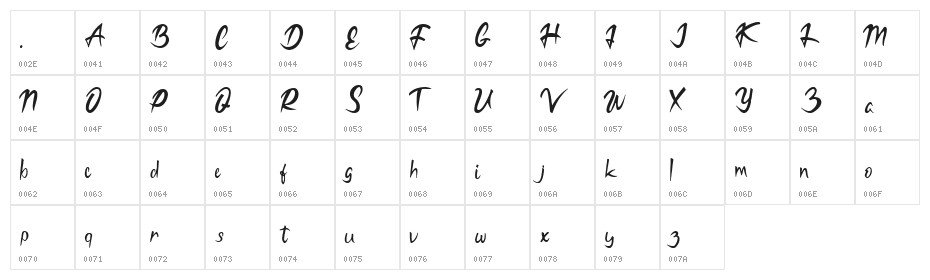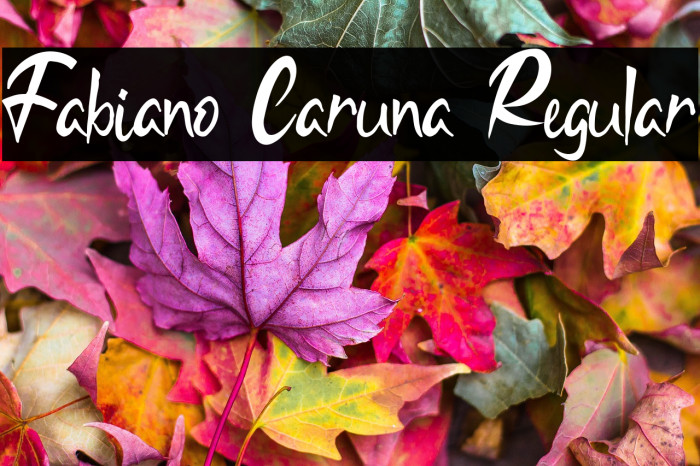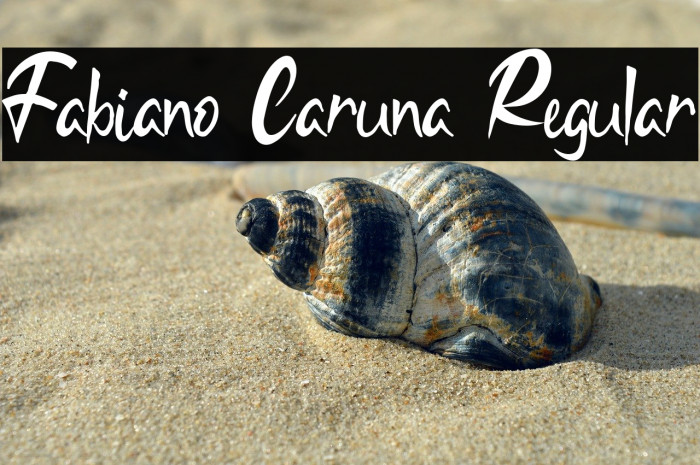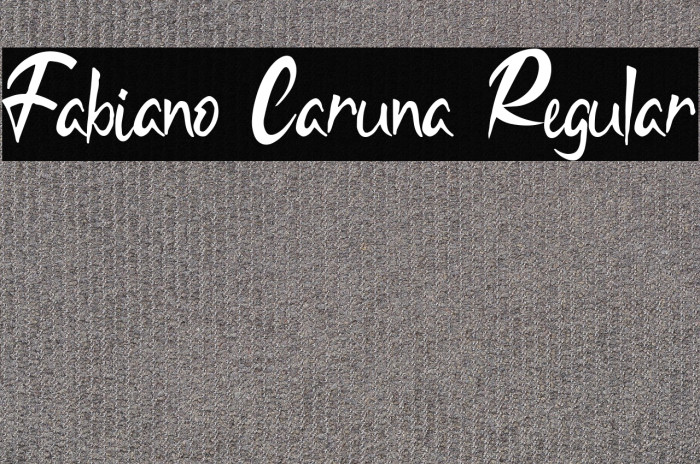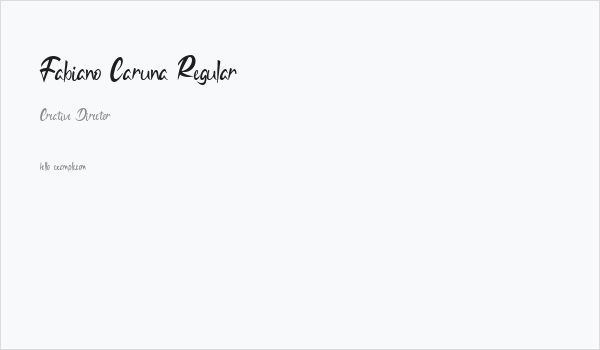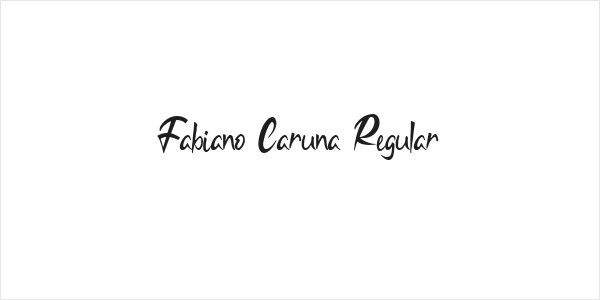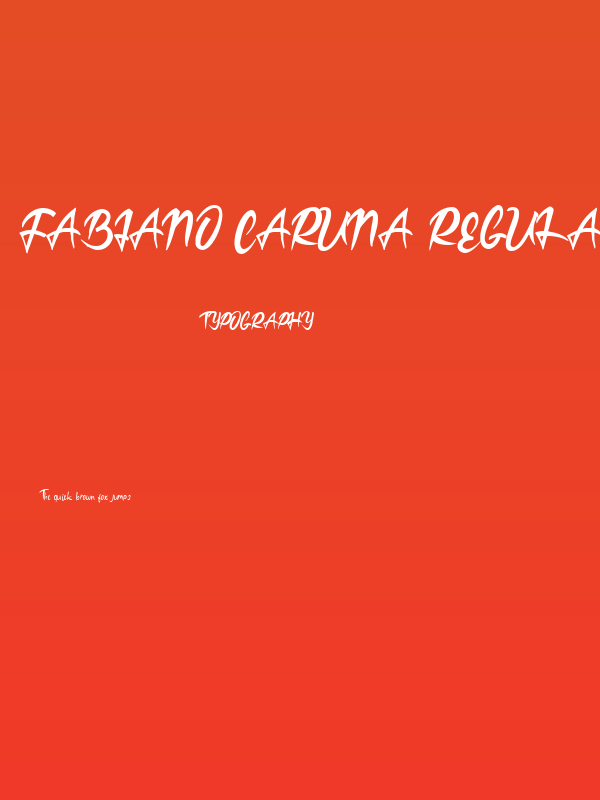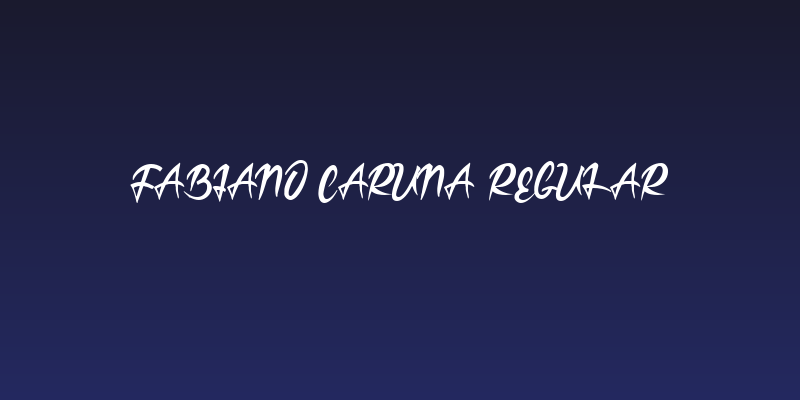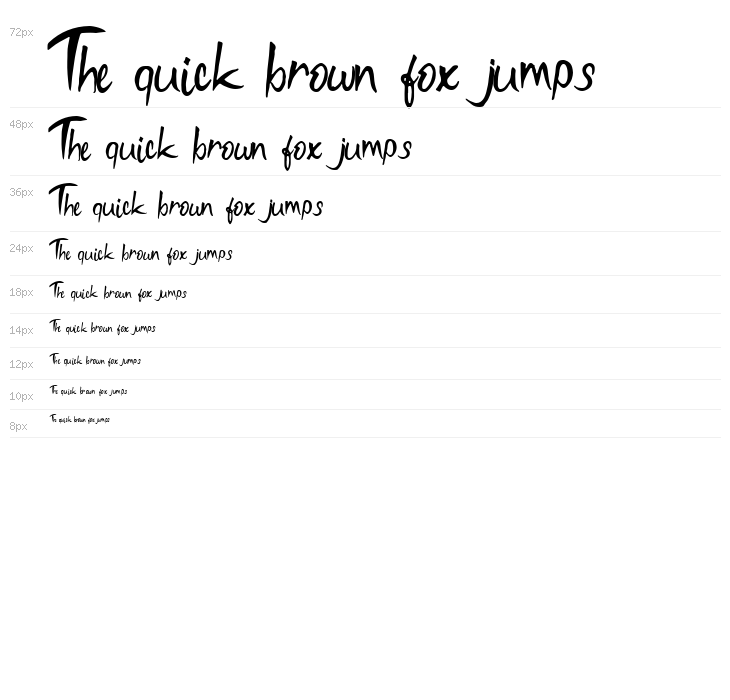
Fabiano Caruna Regular Font
Fabiano Caruna Regular Description
This font features a dynamic and expressive script style, characterized by its flowing, cursive letterforms. The uppercase letters are bold and sweeping, with dramatic flourishes that give a sense of movement and elegance. The lowercase letters maintain a consistent style with a slightly more restrained appearance, ensuring readability while retaining the font's artistic flair. The numbers and special characters are designed to match the overall aesthetic, providing a cohesive look across all glyphs. This font's unique style makes it suitable for creative and decorative applications.